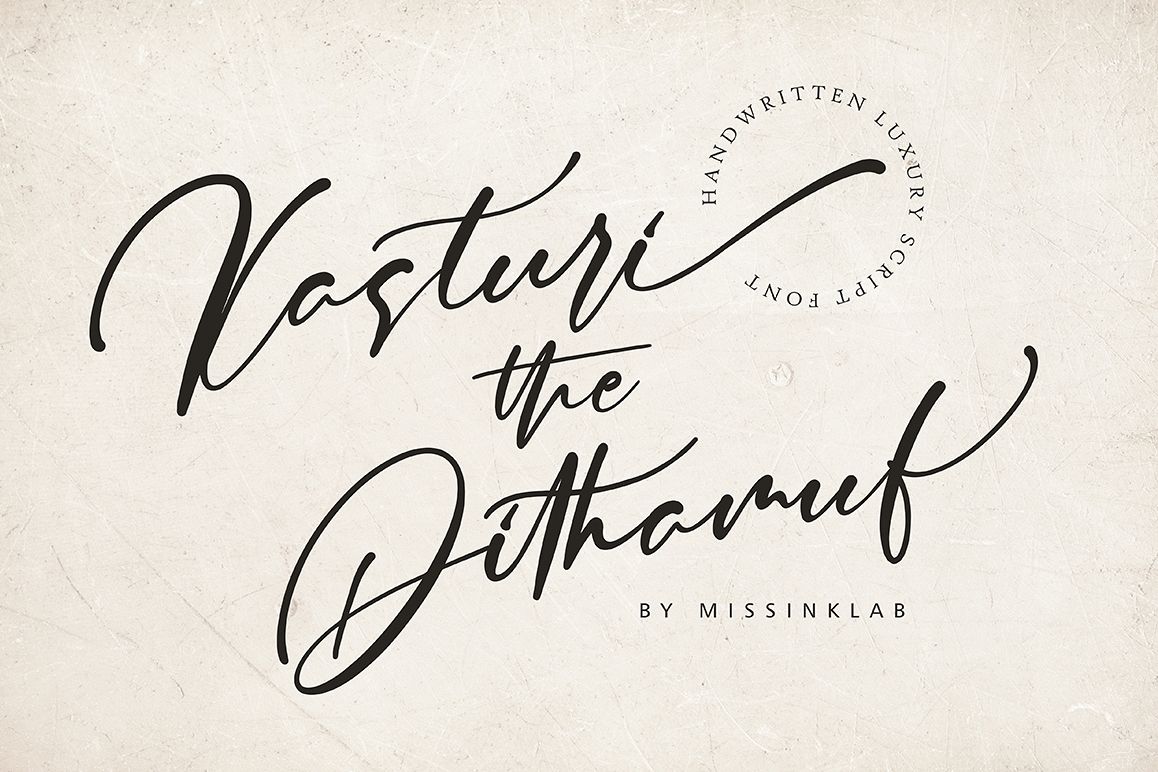
Kasturi Dithamuf
Kasturi Dithamuf script font font with new style, this font will perfect for many different project ex: quotes, logo, blog header, poster, banding, fashion, apparel, letter, invitation, stationery, etc...